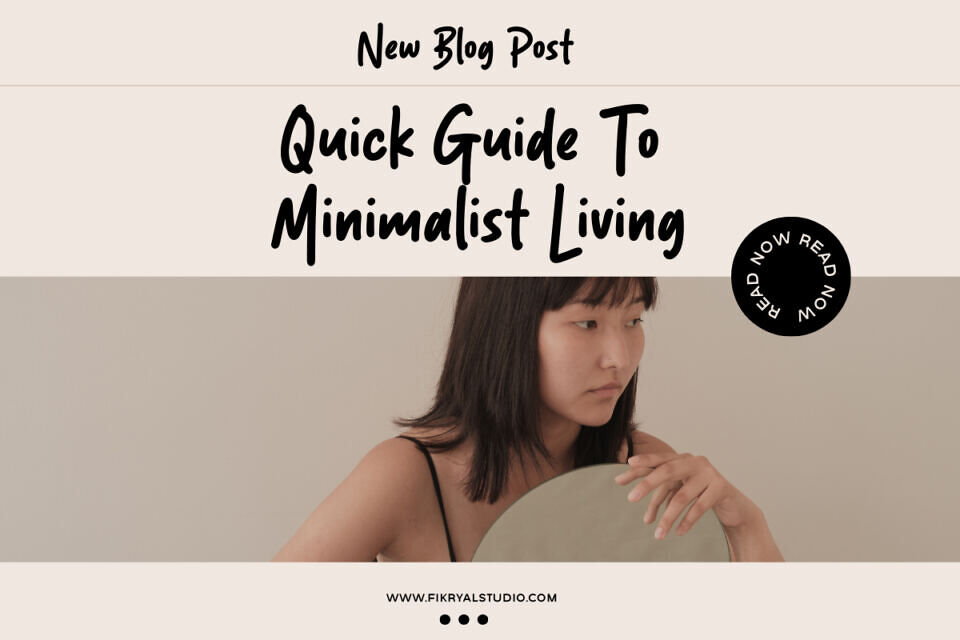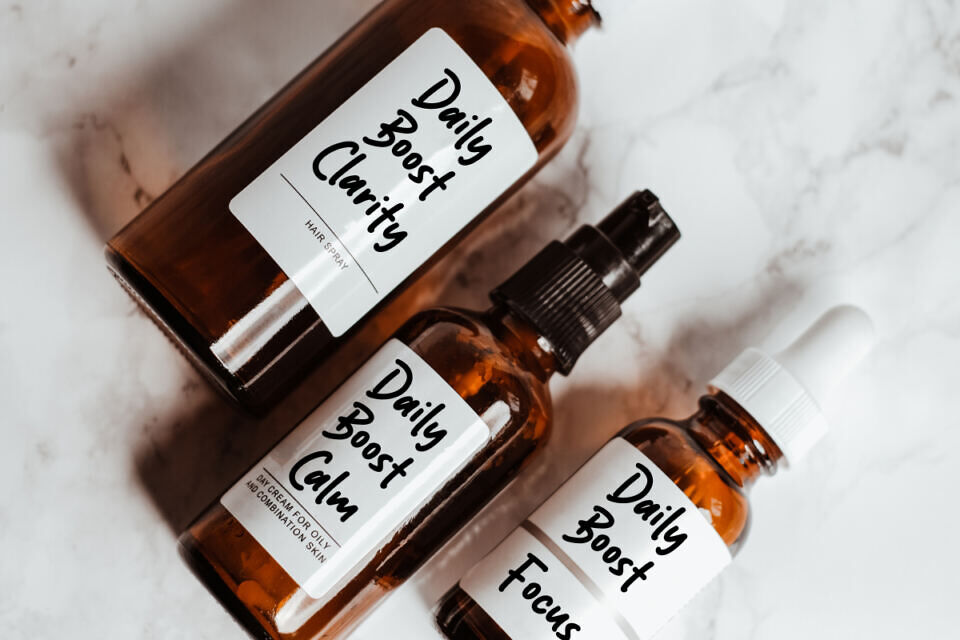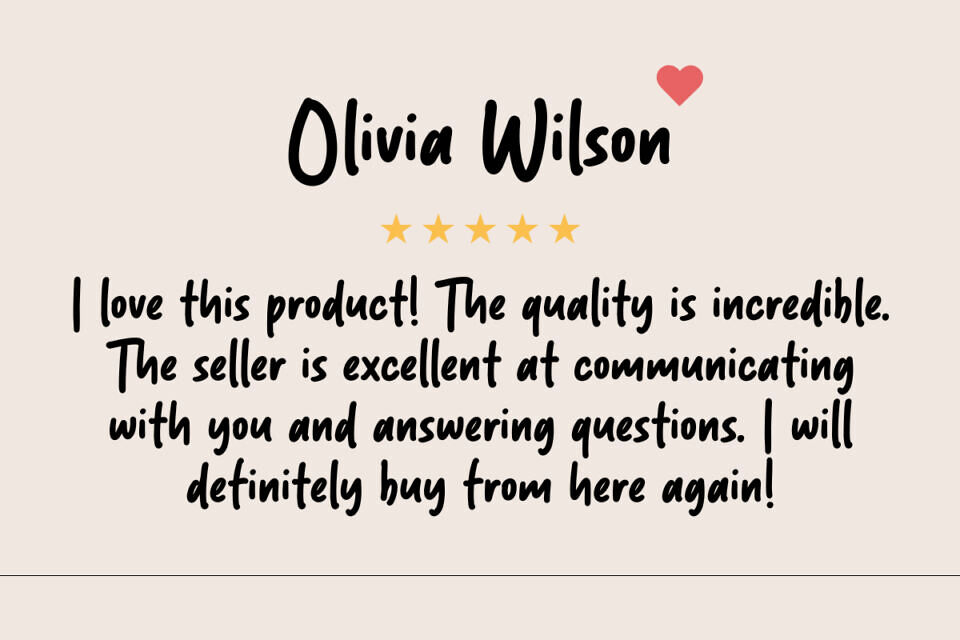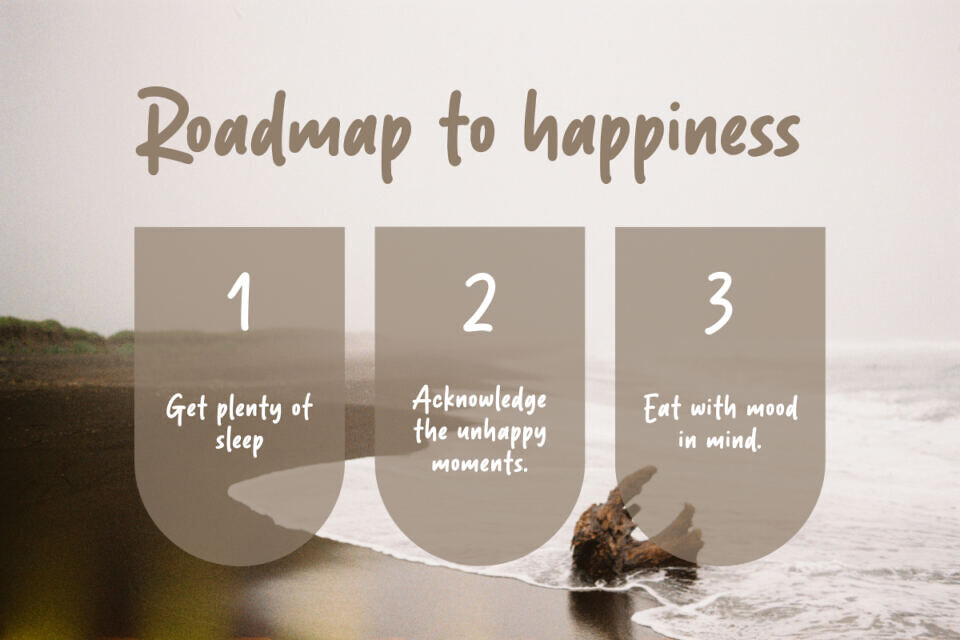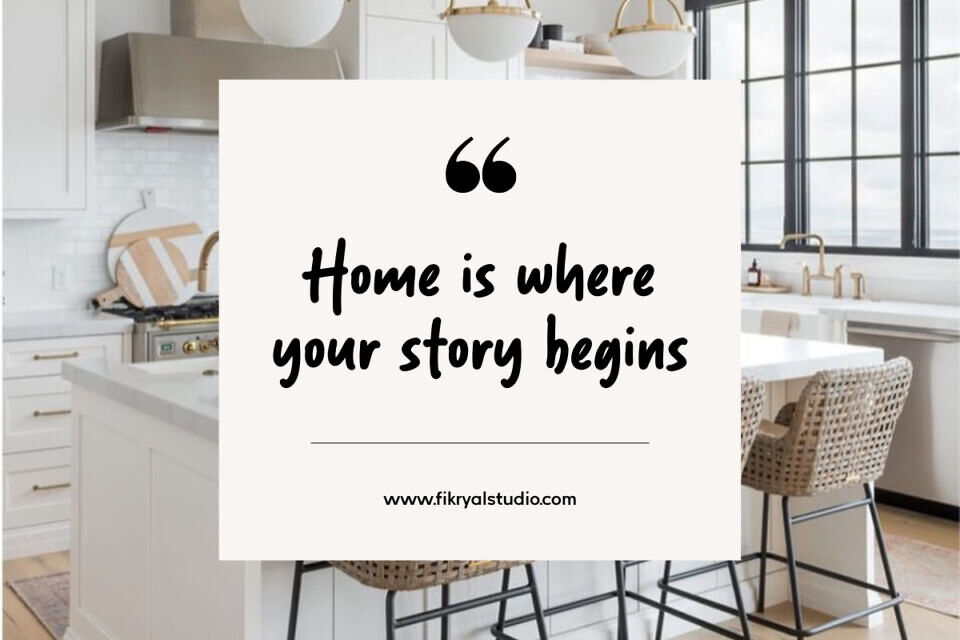
Pastas Morgana Font
Introducing Pastas Morgana – Handwritten Display Font, a bold and artistic typeface crafted to infuse creativity and originality into your designs. Featuring playful strokes and a natural handwritten flow, this font delivers a handcrafted, distinctive charm.
Perfect for branding, packaging, advertising, social media graphics, merchandise, and invitations, Pastas Morgana ensures your message captures attention with style and authenticity.